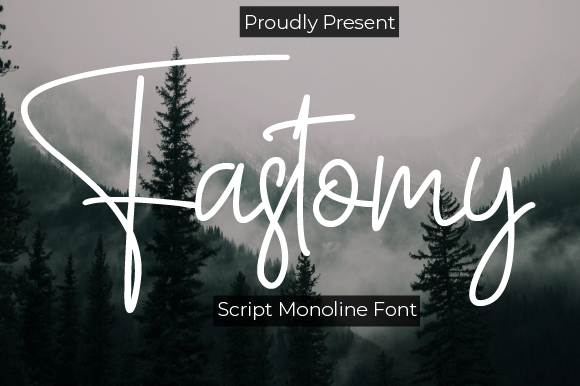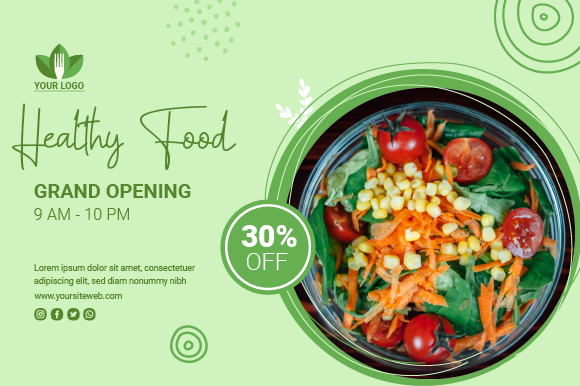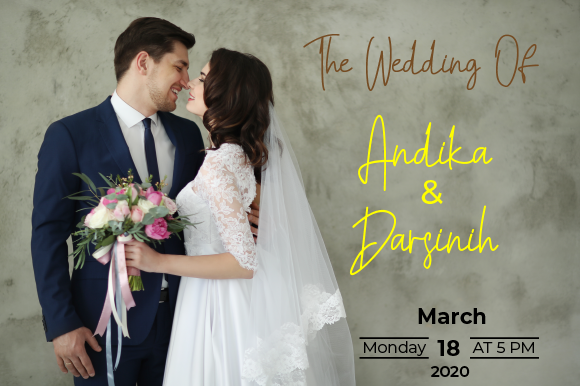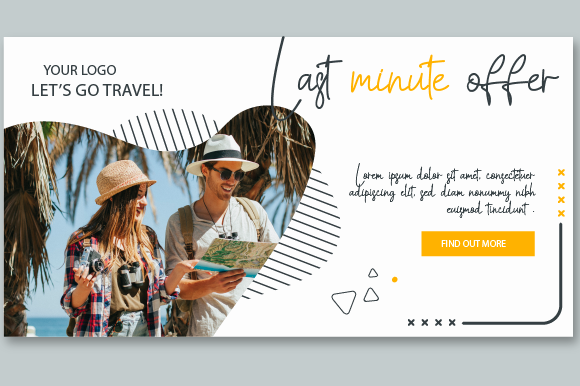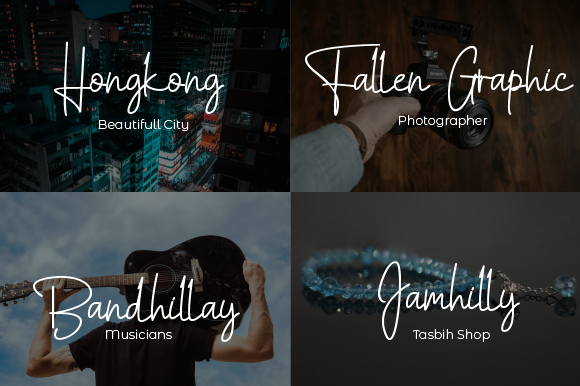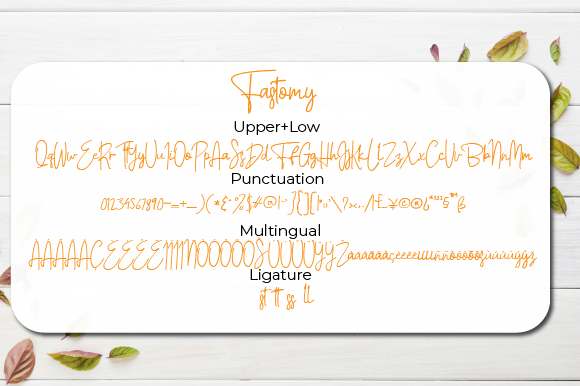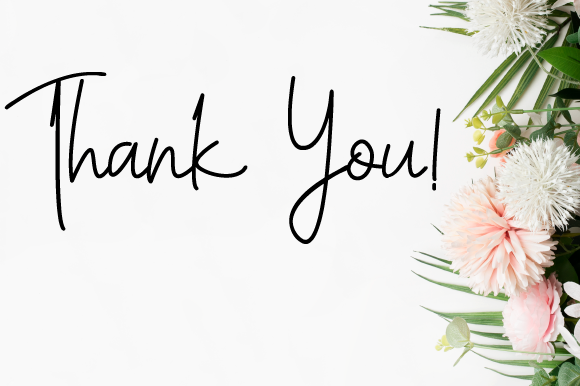
Fastomy Font
About Fastomy Font
Fastomy is a trendy and flowing handwritten font. It is the best choice for creating eye catching logos, branding and quotes. Every letter has a unique and beautiful touch, which will make your design come alive!